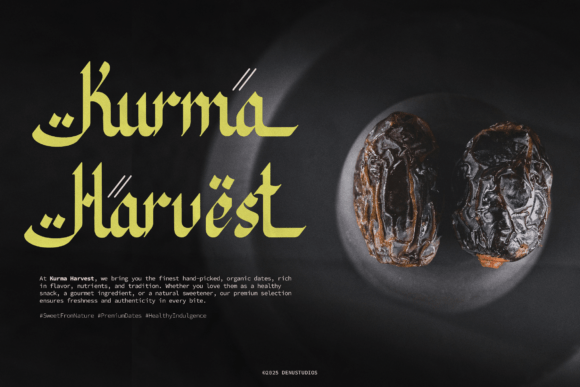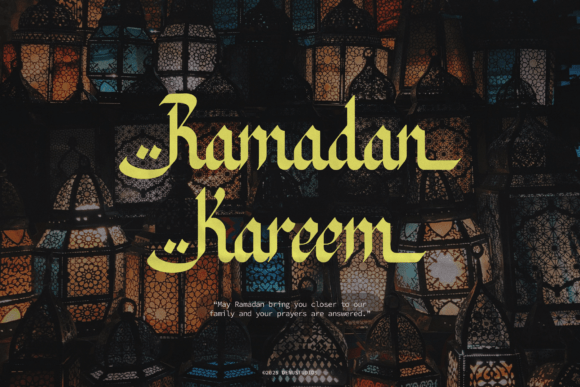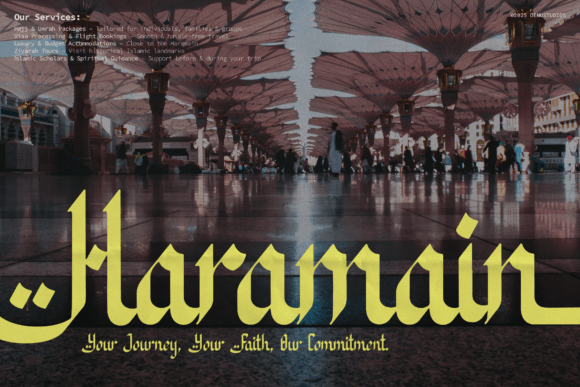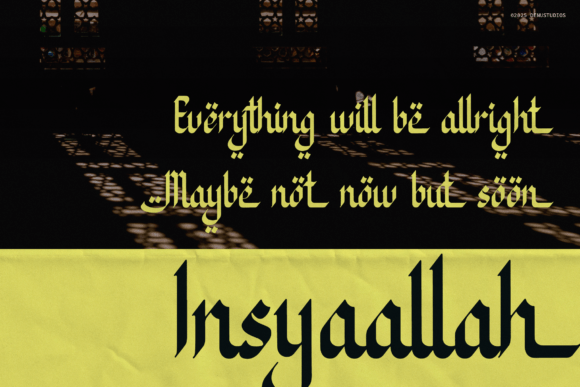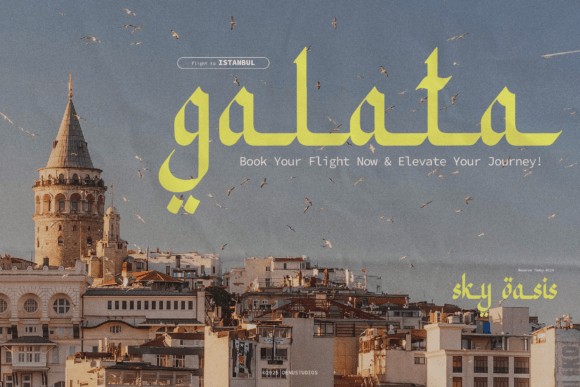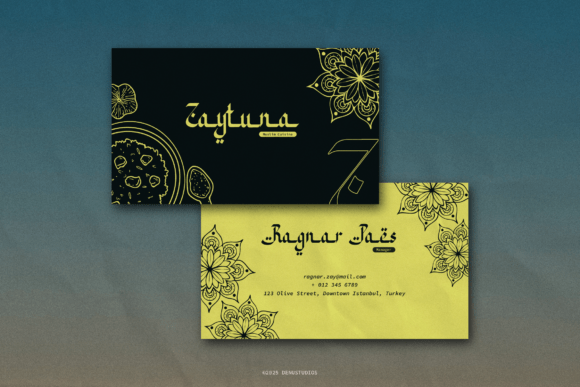
Discover the Elegance of Arabic-Inspired Typography with Al Laylie Font
Are you a designer or crafter looking for a unique and elegant font to add a touch of sophistication to your projects? Look no further than Al Laylie Font, a refined and beautiful Islamic-style font that embodies the essence of Arabic-inspired typography. With its graceful curves, intricate details, and calligraphic influences, Al Laylie is the perfect choice for anyone seeking to evoke a sense of tradition while maintaining a modern and versatile aesthetic.
A Font that Embodies Tradition and Modernity
Al Laylie Font is a masterful blend of traditional Arabic calligraphy and modern typography. Its elegant curves and intricate details are reminiscent of classical Arabic scripts, while its clean lines and balanced structure ensure that it remains highly legible and versatile. Whether you’re working on a project for Islamic art, Ramadan designs, book covers, branding, or cultural projects, Al Laylie is the perfect choice.
Key Features of Al Laylie Font
- 280+ Glyphs: Al Laylie comes with an extensive range of glyphs, including letters, numbers, and symbols, providing you with a wide range of creative possibilities.
- Ligatures and Alternates: The font features beautiful ligatures and alternate characters, allowing you to add a unique touch to your designs.
- Multilingual Support: Al Laylie supports multiple languages, making it a versatile choice for designers working on international projects.
- Islamic Art and Calligraphy: The font’s calligraphic influences and elegant curves make it perfect for Islamic art and calligraphy projects.
Al Laylie Font is an incredibly versatile font that can be used for a wide range of projects, including:
- Islamic Art and Ramadan Designs: Create stunning Islamic art and Ramadan designs with Al Laylie’s elegant and refined aesthetic.
- Book Covers and Publishing: Add a touch of sophistication to your book covers and publishing projects with Al Laylie’s classic and timeless design.
- Branding and Advertising: Use Al Laylie to create unique and memorable brand identities that reflect your values and aesthetic.
- Cultural Projects: Celebrate your cultural heritage with Al Laylie’s beautiful and authentic Arabic-inspired typography.
Why Choose Al Laylie Font?
With so many fonts available, why choose Al Laylie? Here are just a few reasons why Al Laylie stands out:
- Unique and Elegant Design: Al Laylie’s refined and elegant design sets it apart from other fonts, making it perfect for designers seeking a unique aesthetic.
- Highly Legible: Despite its intricate details, Al Laylie remains highly legible, making it perfect for body text and headlines.
- Versatile and Adaptable: Al Laylie can be used for a wide range of projects, from Islamic art to book covers and branding.
In conclusion, Al Laylie Font is a stunning and versatile font that embodies the beauty and elegance of Arabic-inspired typography. With its refined design, extensive range of glyphs, and multilingual support, Al Laylie is the perfect choice for designers and crafters seeking to add a touch of sophistication to their projects. Whether you’re working on Islamic art, Ramadan designs, book covers, branding, or cultural projects, Al Laylie is sure to impress.